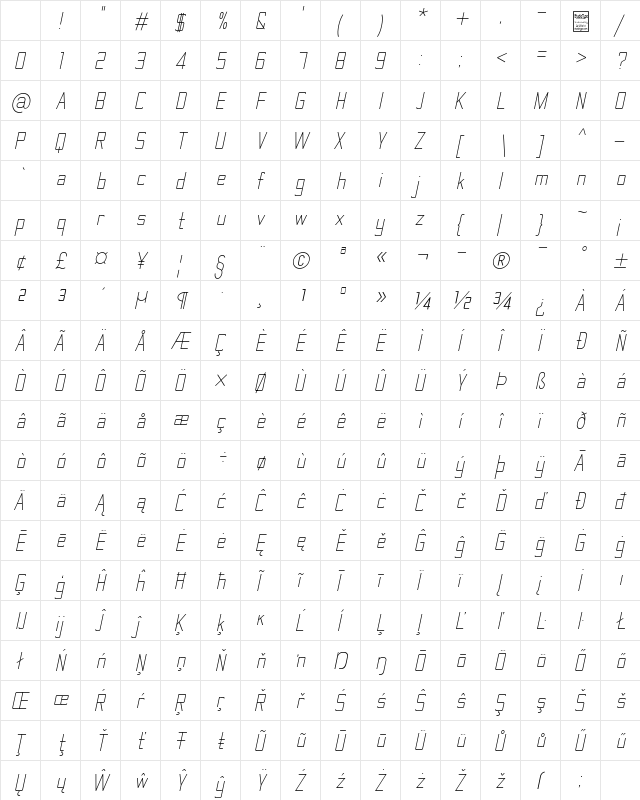
Complete TheMatic Light Italic glyph index. Displaying only characters natively supported by TheMatic Light Italic font.
TheMatic Light is a composed and adaptable typeface that performs quietly and consistently across a wide range of design contexts. The slanted form adds forward momentum and visual energy. Its slender proportions lend an understated elegance to any composition.